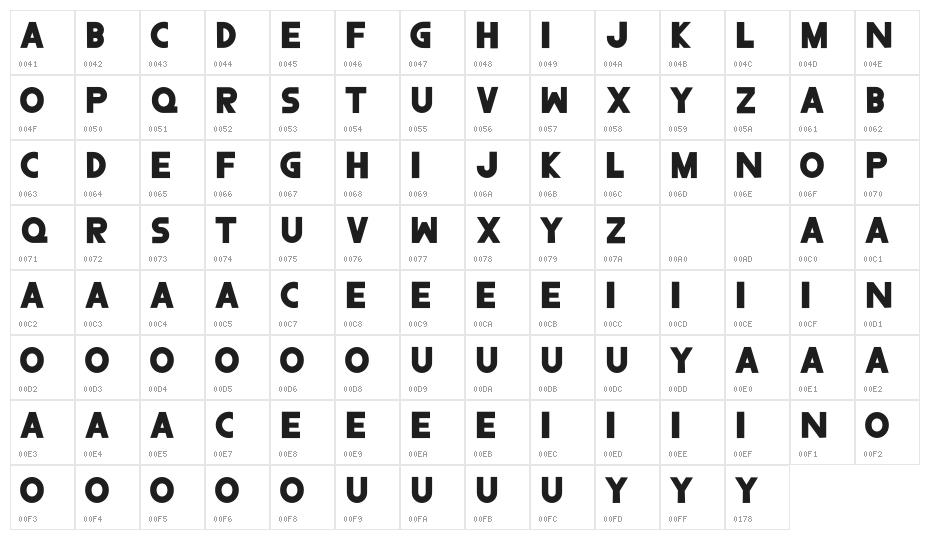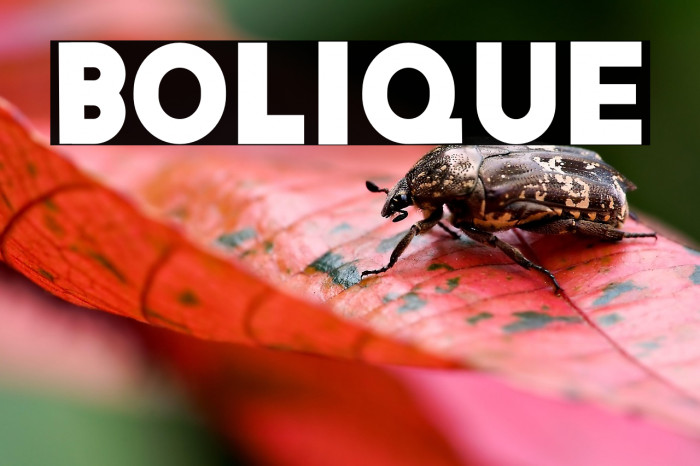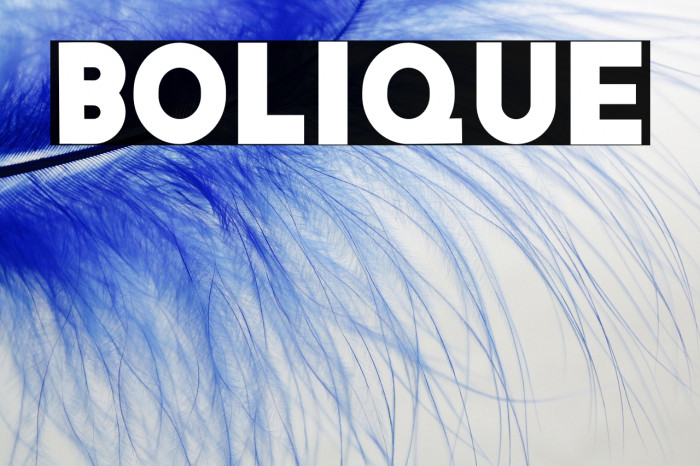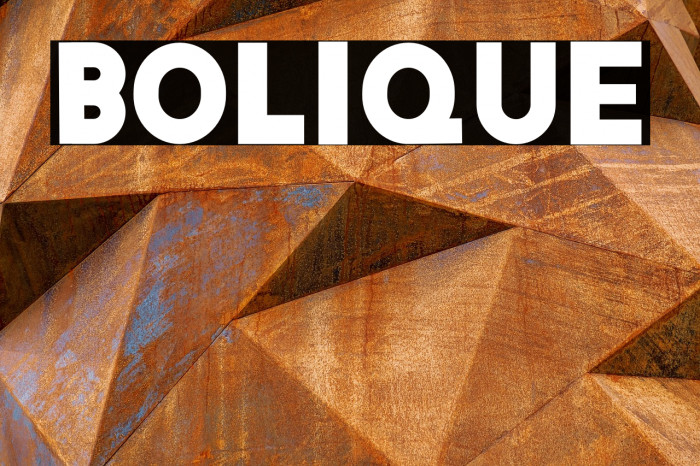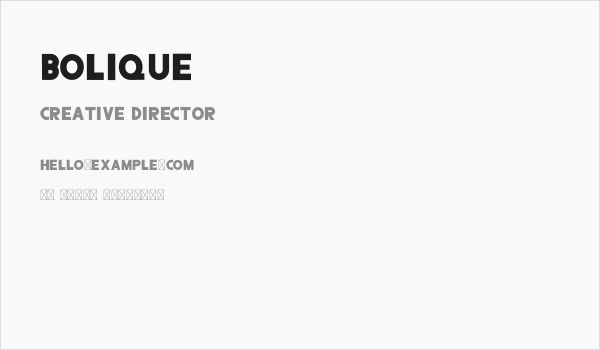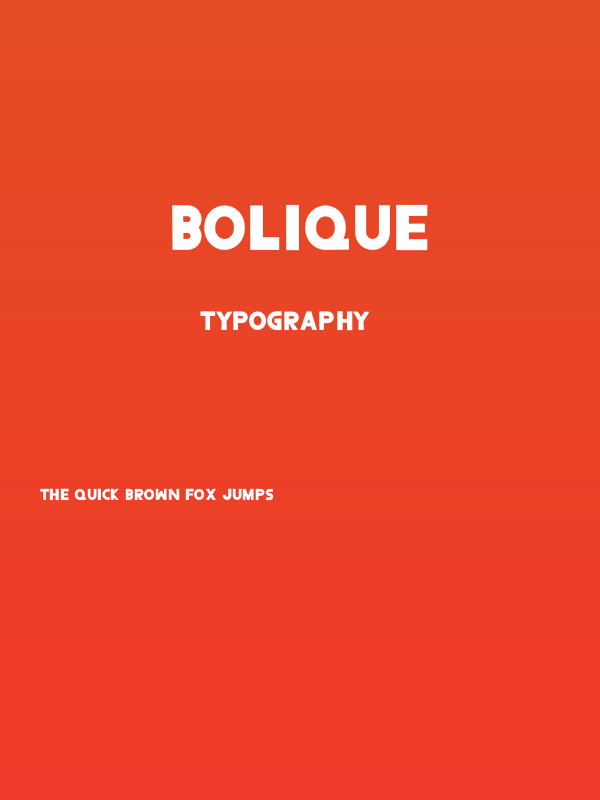
Bolique Font
Bolique Description
This font features bold, geometric letterforms with a strong presence. The characters are constructed with thick, uniform strokes that create a sense of stability and strength. The design is clean and modern, with a slight nod to vintage styles through its blocky, angular shapes. The uppercase letters are particularly striking, with a consistent height and width that contribute to a cohesive look. The absence of lowercase letters and numerals suggests a focus on impactful, attention-grabbing text, ideal for headlines or branding. The font's simplicity and clarity make it versatile for various design applications.
| Proposed Projects | Ideal for branding, headlines, posters, and any design requiring a bold statement. |